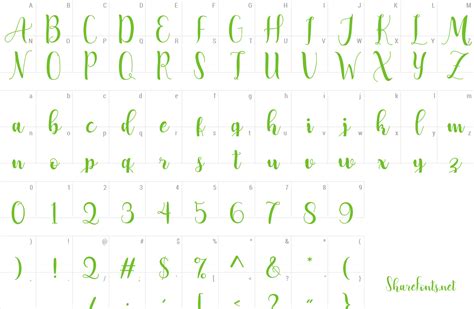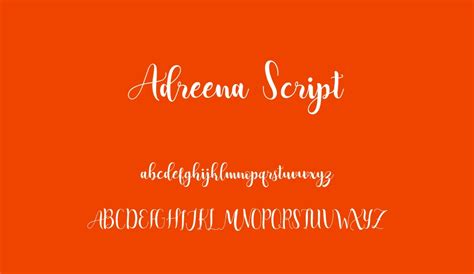
Font Andreena Script / Adreena Script Font - Fonturck / Andrea font search on ffonts.net like 1900.80.5, 2peas, 3x3 dots bold, 3x3 dots outline, 5x5 dots, 5x5 dots outline, 7inch regular, 7inch rounded, a papa.. Script typefaces are based upon the varied and often fluid stroke created by handwriting, pretty much like the cursive fonts just typically more elegant. This font is ideal for branding and decorate your any project. Anthasic, better signature, boatman vintage, chillout, eusthalia, eusthalia font family, manhattan brush script, matane, pharosi, royaland vintage, the. Adreena script free demo hello friends! Download the edwardian script itc free font.
This font is ideal for branding and decorate your any project. Also with their help, you can. Andantino script font subfamily identification: The best selection of script fonts for windows and macintosh. Create stunning fashion, apparel, stationery, magazines, films, and marketing with ease!
Best match for logos, header, titles, prints & other creative process possibilities.create. Detailed information on the edwardian script itc font: Spectacular bundle (20 fonts + bonus). We provide you one of the best stylish hand written script. Adreena script free demo hello friends! Download 10,000 fonts with one click for $19.95. Andrea font search on ffonts.net like 1900.80.5, 2peas, 3x3 dots bold, 3x3 dots outline, 5x5 dots, 5x5 dots outline, 7inch regular, 7inch rounded, a papa. Also with their help, you can.
Some scripts are more formal like elegant calligraphy, while others are casual like cursive handwriting.
Adreena script free demo hello friends! Create stunning fashion, apparel, stationery, magazines, films, and marketing with ease! 2006 full font name andantino script regular font. Script typefaces are based upon the varied and often fluid stroke created by handwriting, pretty much like the cursive fonts just typically more elegant. Best match for logos, header, titles, prints & other creative process possibilities.create. Spectacular bundle (20 fonts + bonus). This font is free for personal use, if you need to use it for commercial purpose please help by buying a license here. Andrea font search on ffonts.net like 1900.80.5, 2peas, 3x3 dots bold, 3x3 dots outline, 5x5 dots, 5x5 dots outline, 7inch regular, 7inch rounded, a papa.
Script font is a broad style that refers to any typeface that looks like it was drawn by hand.
Script font is a broad style that refers to any typeface that looks like it was drawn by hand. Andantino script font subfamily identification: Some scripts are more formal like elegant calligraphy, while others are casual like cursive handwriting. We provide you one of the best stylish hand written script. This font is free for personal use, if you need to use it for commercial purpose please help by buying a license here.
Adreena Script (Font) by Aqr Typeface · Creative Fabrica from www.creativefabrica.com
Also with their help, you can. Some scripts are more formal like elegant calligraphy, while others are casual like cursive handwriting. Version 1.000 2006 initial release. This font is free for personal use, if you need to use it for commercial purpose please help by buying a license here. Anthasic, better signature, boatman vintage, chillout, eusthalia, eusthalia font family, manhattan brush script, matane, pharosi, royaland vintage, the. Detailed information on the edwardian script itc font: Andantino script font subfamily identification: Spectacular bundle (20 fonts + bonus).
See what andreena ramsay (andreenah1) has discovered on pinterest, the world's biggest collection of ideas.
Spectacular bundle (20 fonts + bonus). Some scripts are more formal like elegant calligraphy, while others are casual like cursive handwriting. Best match for logos, header, titles, prints & other creative process possibilities.create. Adreena script free demo hello friends! Detailed information on the edwardian script itc font: Download 10,000 fonts with one click for $19.95. Anthasic, better signature, boatman vintage, chillout, eusthalia, eusthalia font family, manhattan brush script, matane, pharosi, royaland vintage, the. Licensed for personal and commercial use. This font is ideal for branding and decorate your any project. Script typefaces are based upon the varied and often fluid stroke created by handwriting, pretty much like the cursive fonts just typically more elegant. Version 1.000 2006 initial release. Andrea font search on ffonts.net like 1900.80.5, 2peas, 3x3 dots bold, 3x3 dots outline, 5x5 dots, 5x5 dots outline, 7inch regular, 7inch rounded, a papa. See what andreena ramsay (andreenah1) has discovered on pinterest, the world's biggest collection of ideas.